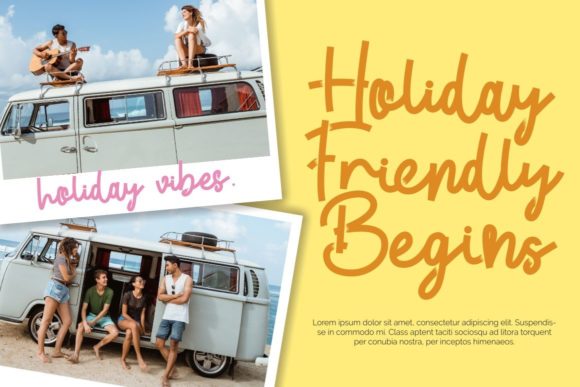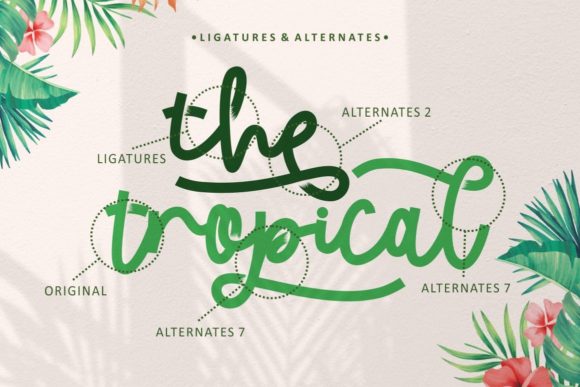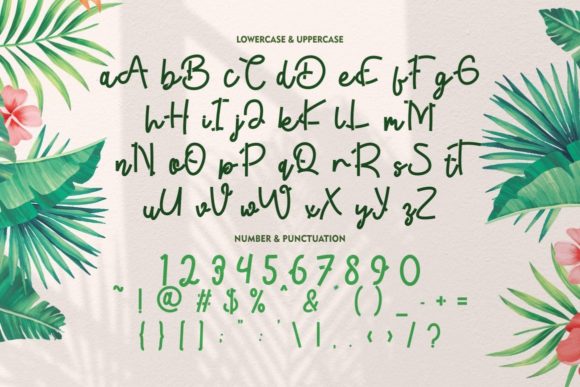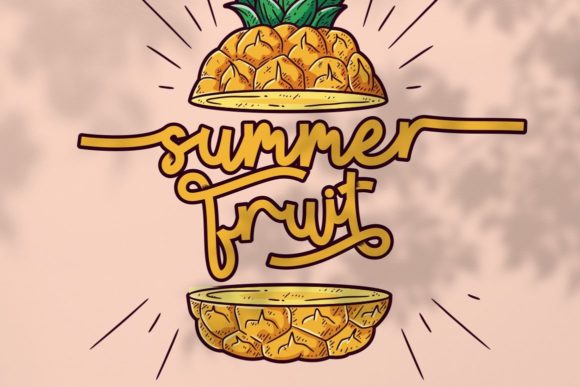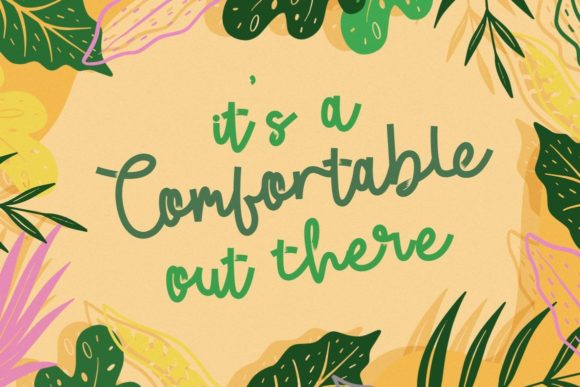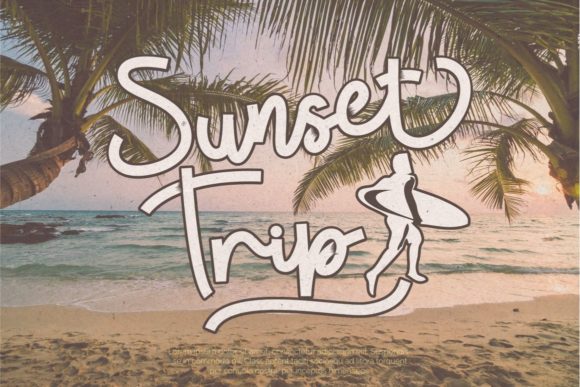
Tropical Beauty Font
Tropical Beauty is a charming and whimsical script font. It will add a luxury spark to any design project that you wish to create! This font is PUA encoded which means you can access all of the amazing glyphs and ligatures with ease!